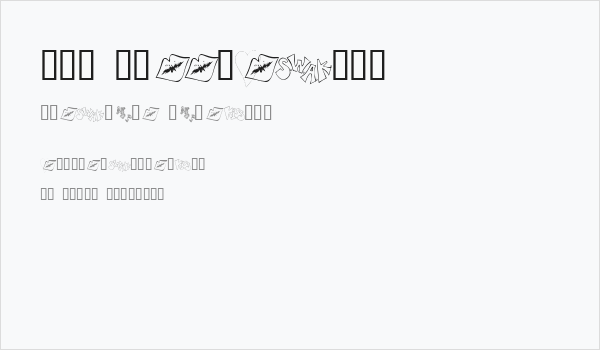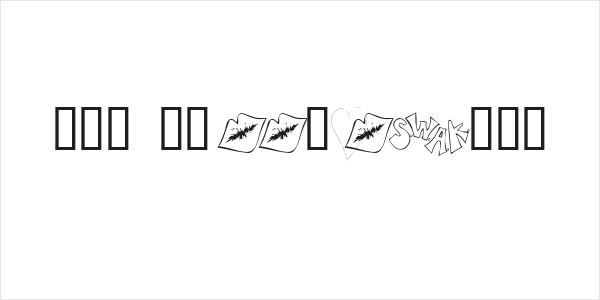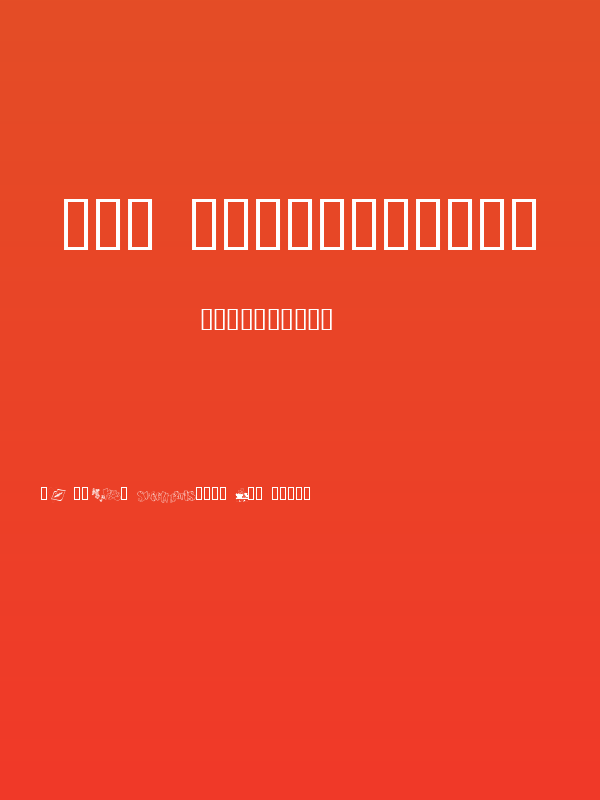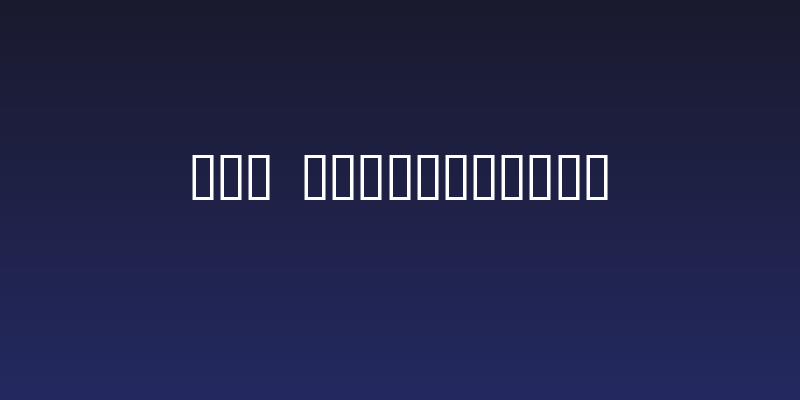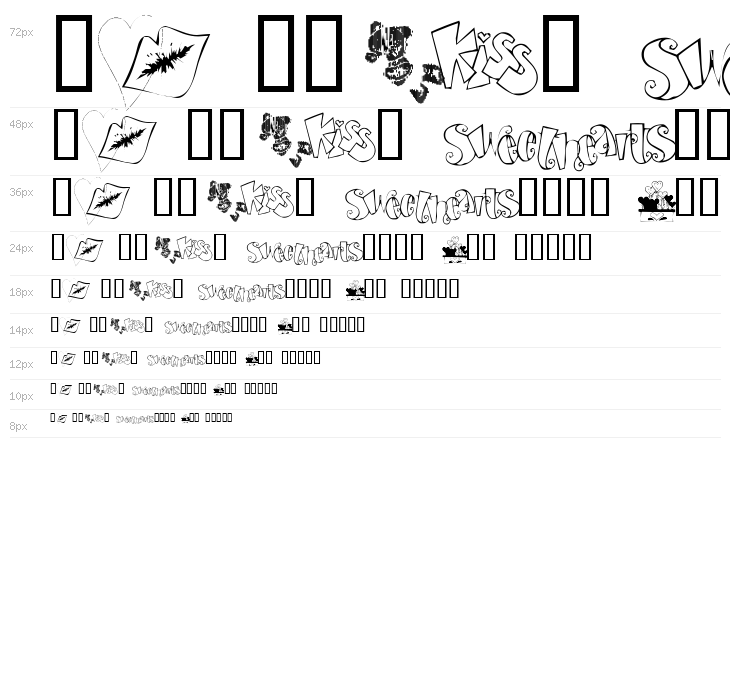
AEZ sweethearts Font
AEZ sweethearts Description
This playful and whimsical font features a unique, hand-drawn style with a touch of cartoonish flair. Each character is creatively designed with varying line thicknesses and quirky embellishments, giving it a lively and fun appearance. The letters are bold and expressive, with some incorporating heart motifs and other decorative elements, making it ideal for projects that require a touch of personality and charm. The font's irregular shapes and artistic details make it stand out, perfect for capturing attention and conveying a sense of joy and creativity.
Overall StyleWhimsical, Playful
Use CaseLogos, Headlines, Decorative text
Proposed ProjectsIdeal for greeting cards, children's book covers, playful branding, and party invitations.